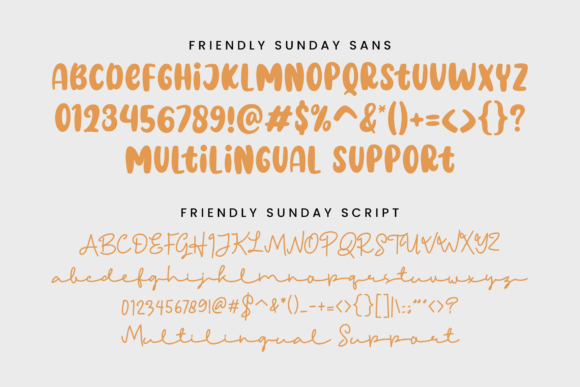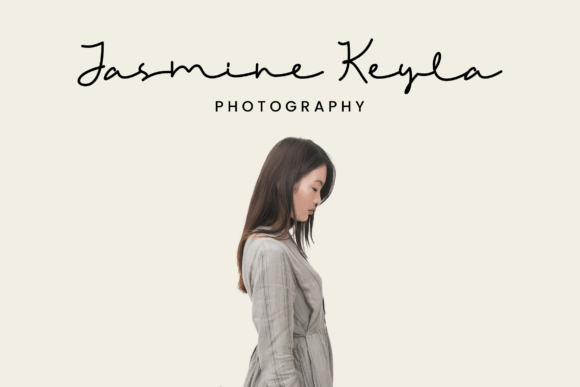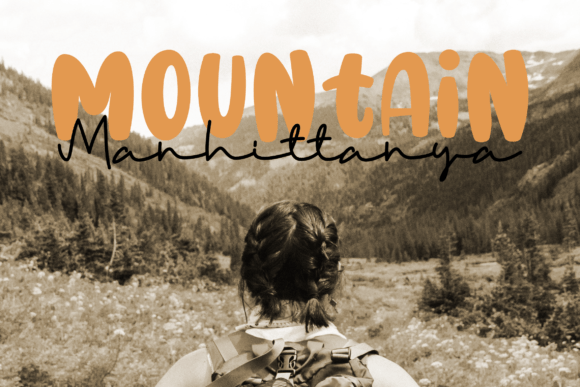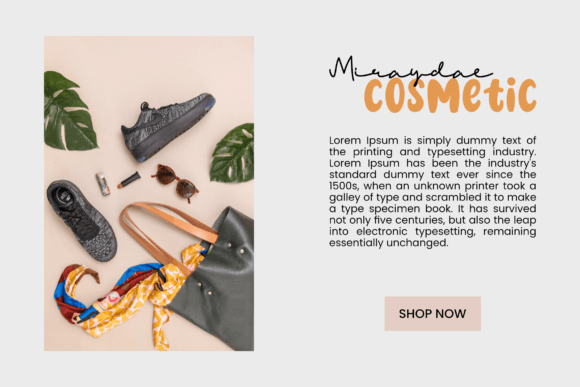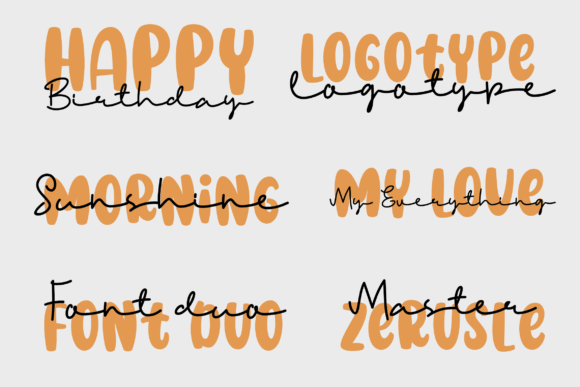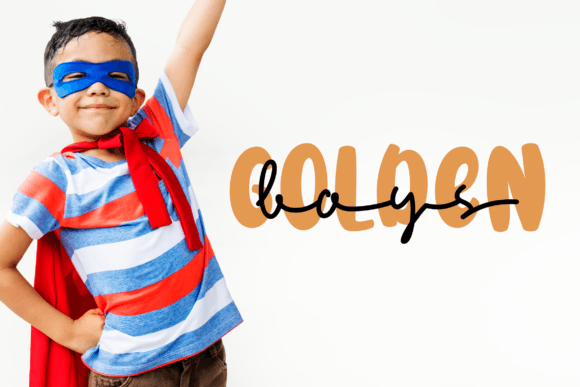
Introducing Friendly Sunday Font: Elevate Your Designs with Elegance
Are you on the hunt for a font that exudes elegance, delicacy, and uniqueness? Look no further than the Friendly Sunday Font, a beautiful font duo that combines a stunning script with a crisp sans serif. This versatile font pairing is designed to match a wide range of design styles, making it a must-have for designers and crafters alike.
The Beauty of Friendly Sunday Font
Friendly Sunday Font is more than just a font – it’s a design statement. With its delicate and elegant characters, this font duo is perfect for adding a touch of sophistication to any project. The script font is beautifully crafted with flowing lines and curves, while the sans serif font provides a clean and modern contrast. The result is a harmonious balance that will elevate your designs to new heights.
What Makes Friendly Sunday Font So Special?
So, what sets Friendly Sunday Font apart from other fonts? Here are just a few reasons why this font duo is a standout:
- Unique and Elegant Design: Each character in the Friendly Sunday Font is carefully crafted to ensure that it is not only beautiful but also well-balanced. This attention to detail makes the font perfect for designs that require a touch of elegance.
- Versatile Pairing: The script and sans serif fonts in the Friendly Sunday Font duo are designed to work seamlessly together. However, they can also be used independently to create a wide range of design effects.
- Wide Range of Design Applications: Whether you’re working on a branding project, a wedding invitation, or a craft project, Friendly Sunday Font is the perfect choice. Its versatility and elegance make it suitable for a wide pool of designs.
Endless Variations to Explore
One of the best things about Friendly Sunday Font is the endless variations you can create. With two fonts in the duo, you can experiment with different combinations to find the perfect look for your project. Here are a few ideas to get you started:
- Mix and Match: Combine the script and sans serif fonts to create a unique and eye-catching design. Use the script font for headings and the sans serif font for body text, or vice versa.
- Add Decorative Elements: Take your design to the next level by adding decorative elements, such as flourishes or icons, to the Friendly Sunday Font.
- Experiment with Colors: The Friendly Sunday Font looks stunning in a range of colors. Try experimenting with different color combinations to find the perfect match for your design.
Friendly Sunday Font is a must-have for designers and crafters who want to add a touch of elegance to their projects. Here are just a few ways you can use this beautiful font duo:
- Branding and Logo Design: Use Friendly Sunday Font to create a stunning logo or brand identity that exudes elegance and sophistication.
- Wedding and Event Design: The Friendly Sunday Font is perfect for wedding invitations, save-the-date cards, and other event materials.
- Crafting and DIY Projects: Add a touch of elegance to your crafting and DIY projects, such as handmade cards, gift tags, and scrapbooking pages.
In conclusion, Friendly Sunday Font is a beautiful and versatile font duo that is perfect for designers and crafters who want to add a touch of elegance to their projects. With its unique and elegant design, versatile pairing, and endless variations, this font duo is a must-have for anyone looking to elevate their designs. So why wait? Get creative with Friendly Sunday Font today and explore its endless possibilities!